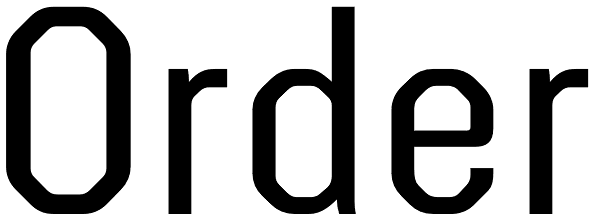
Order
Order is a condensed, technical, plotter-style font styled on proportions similar to Univers 57. Why Univers? The reader’s almost race memory familiarity allows Order to slip under the radar—contemporary technical style balanced with...
Order